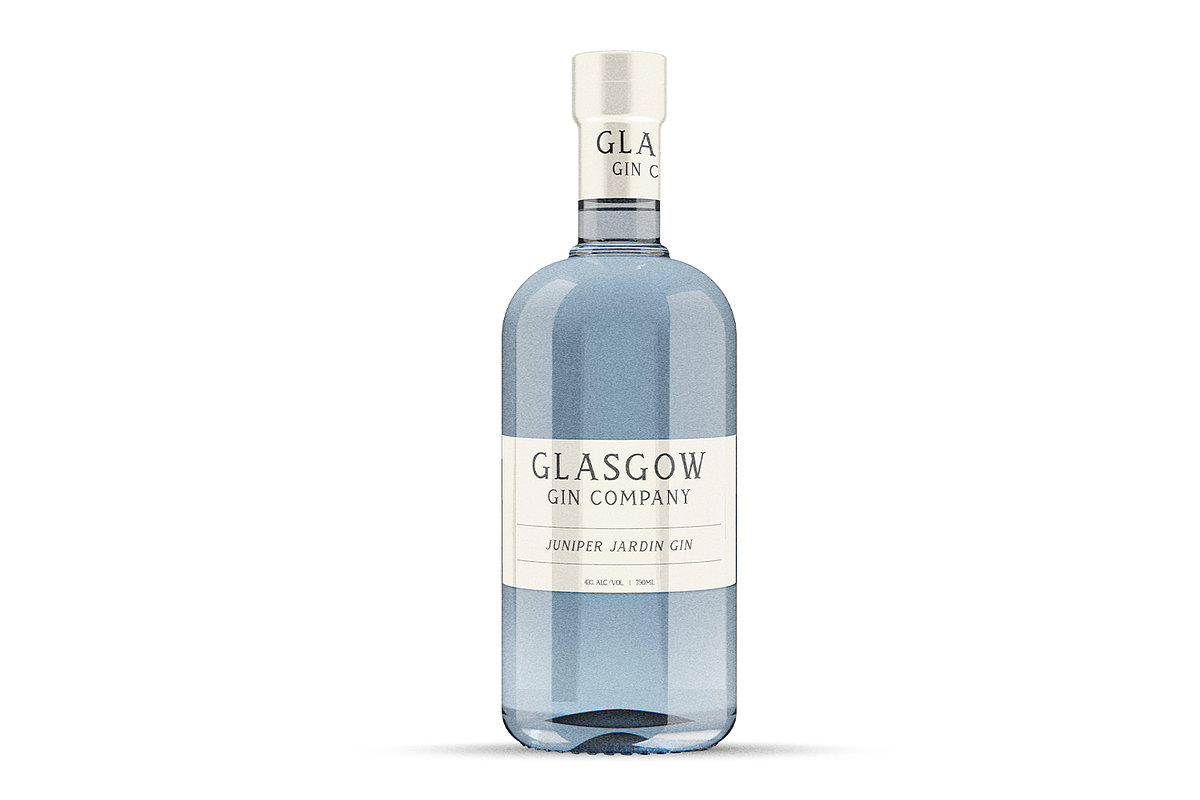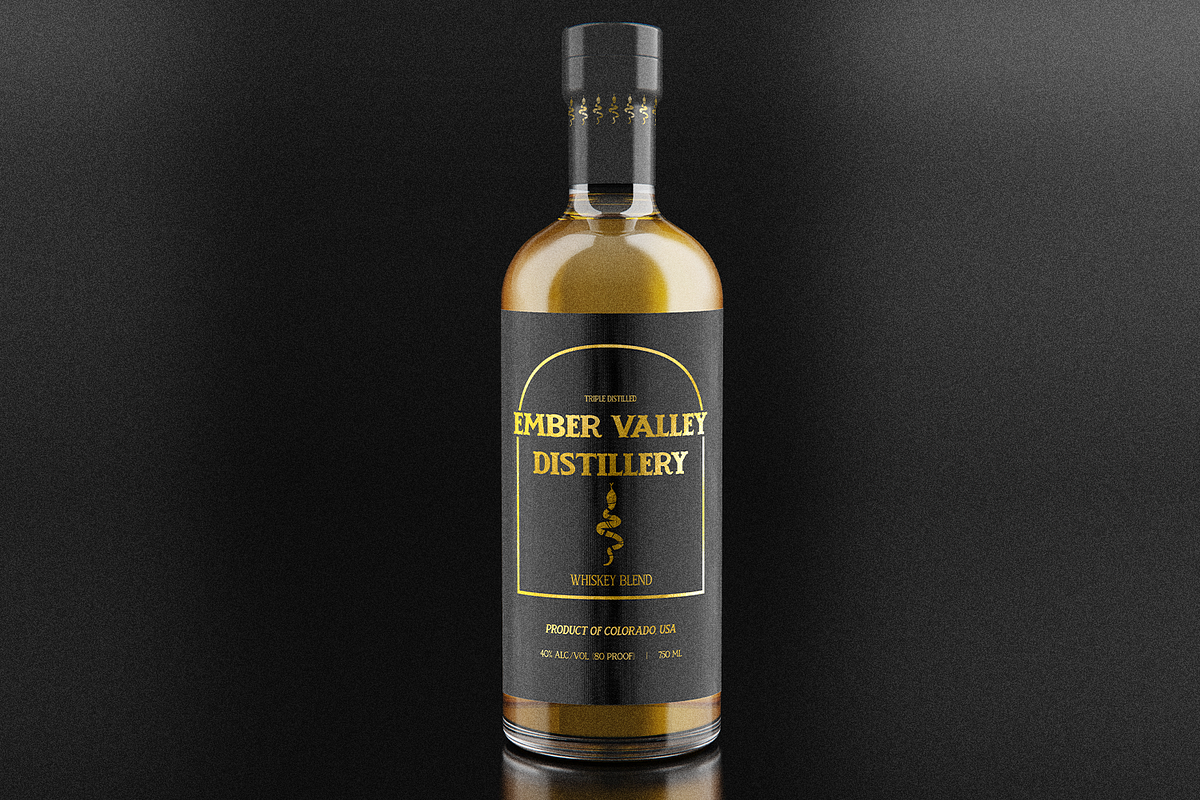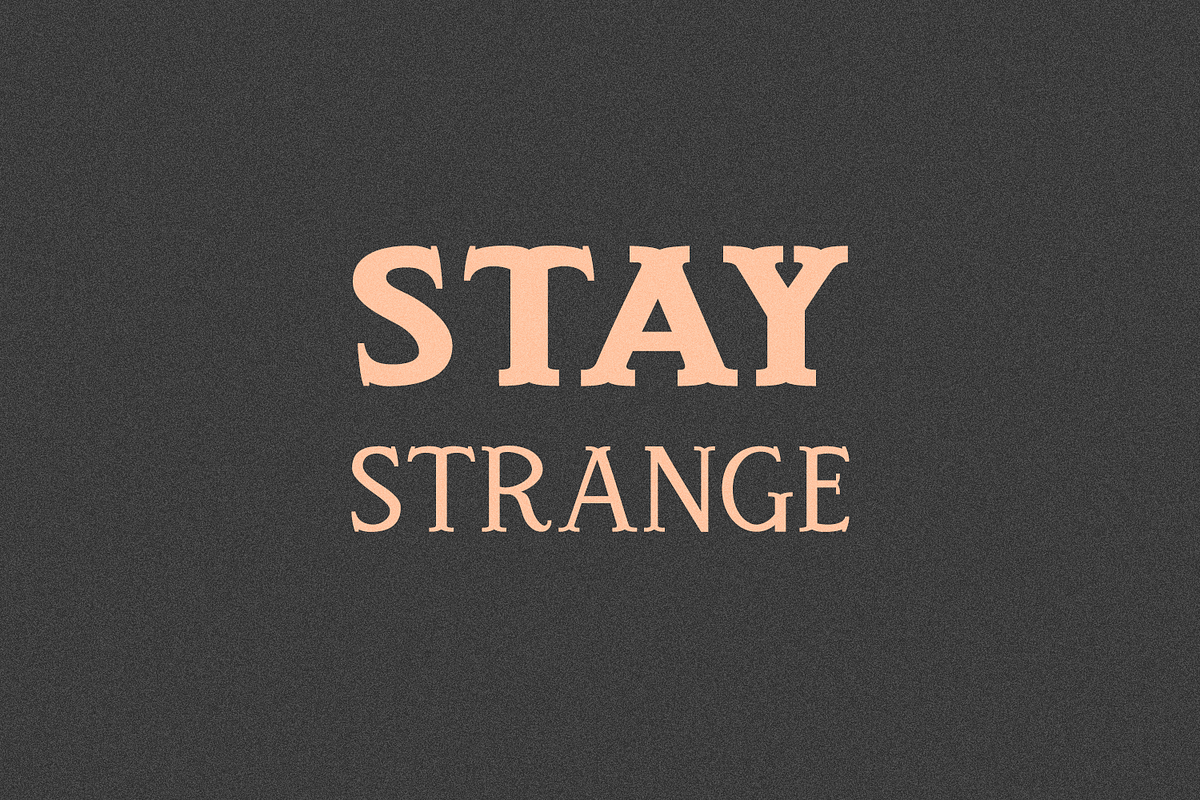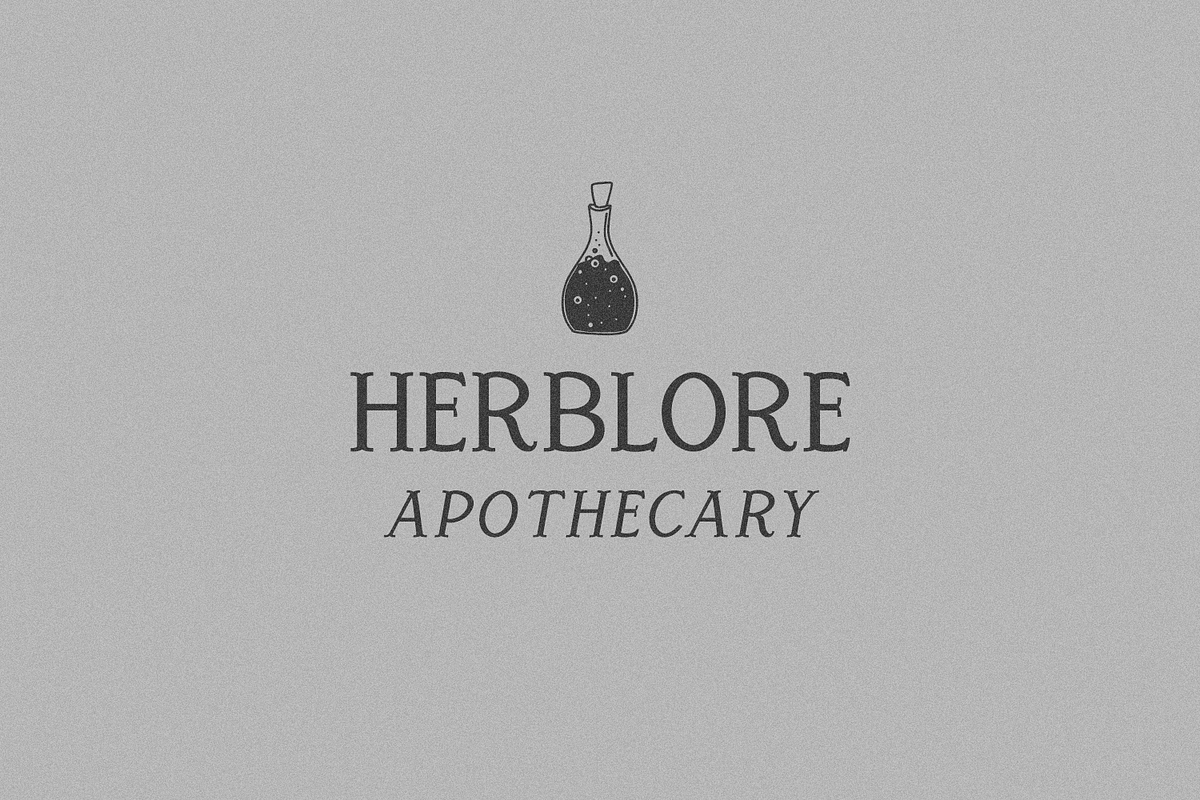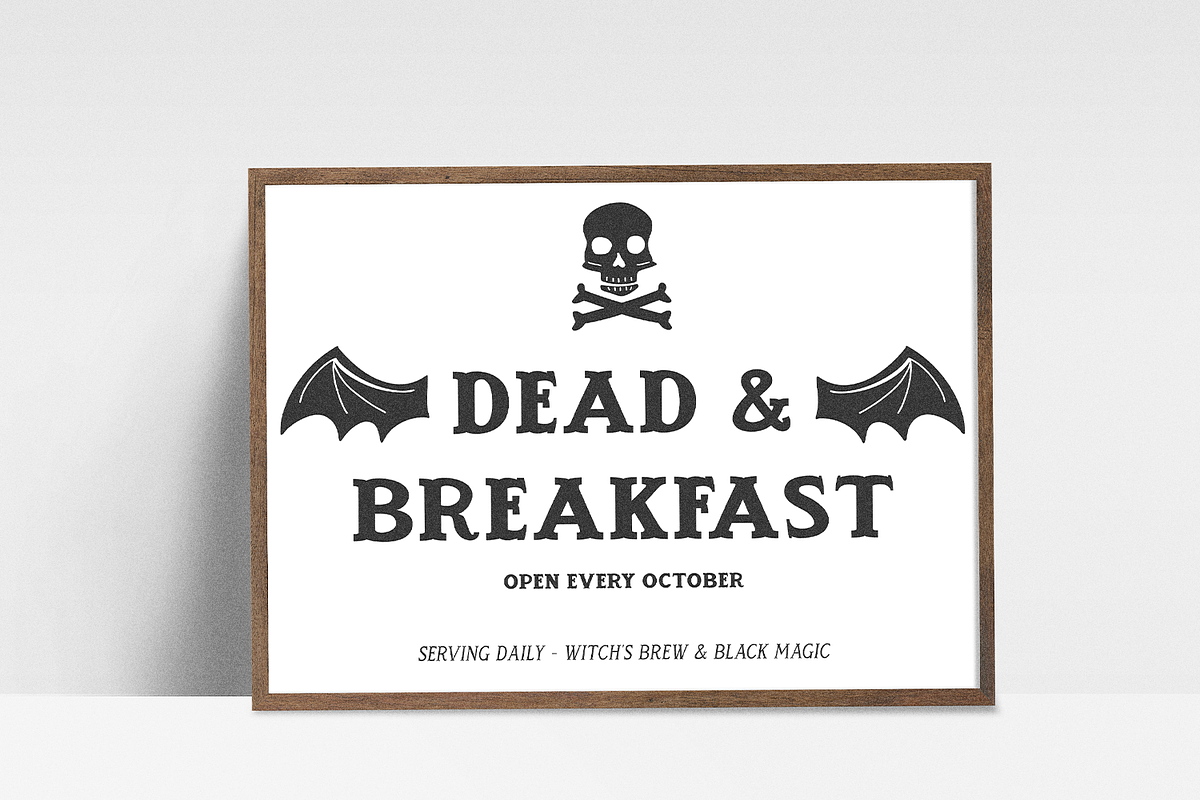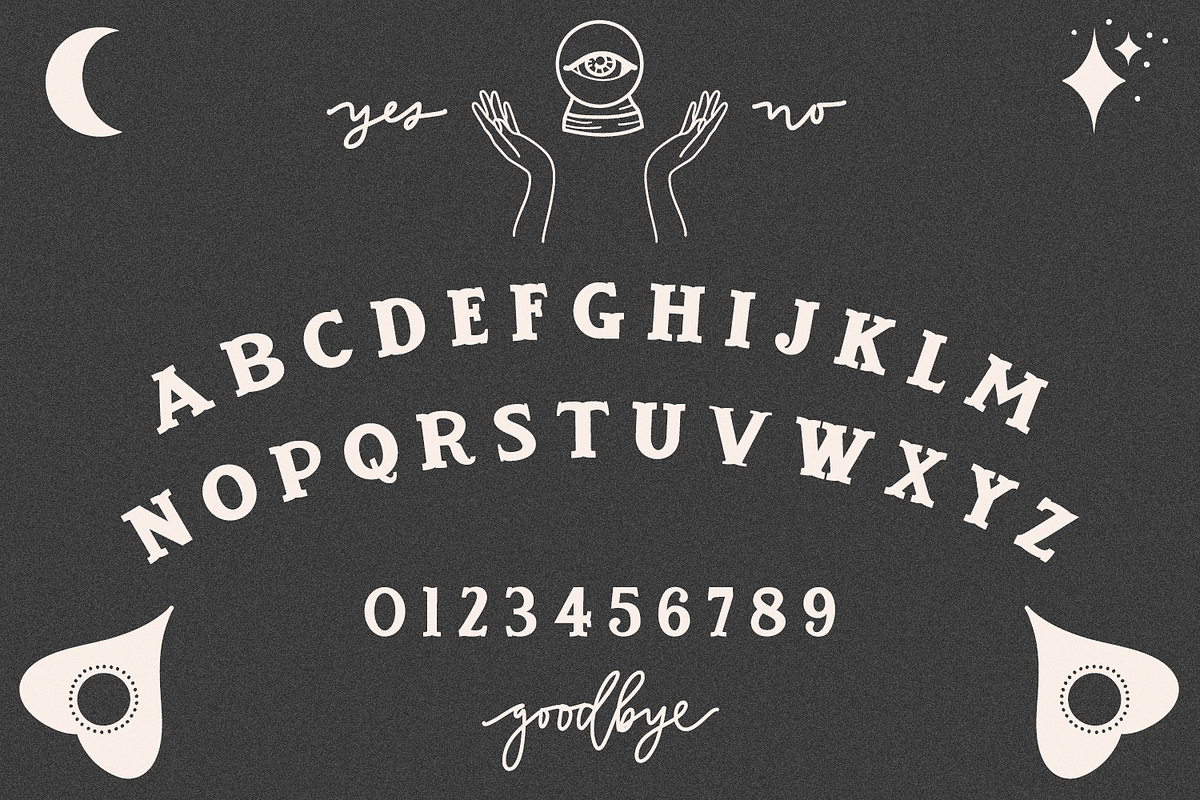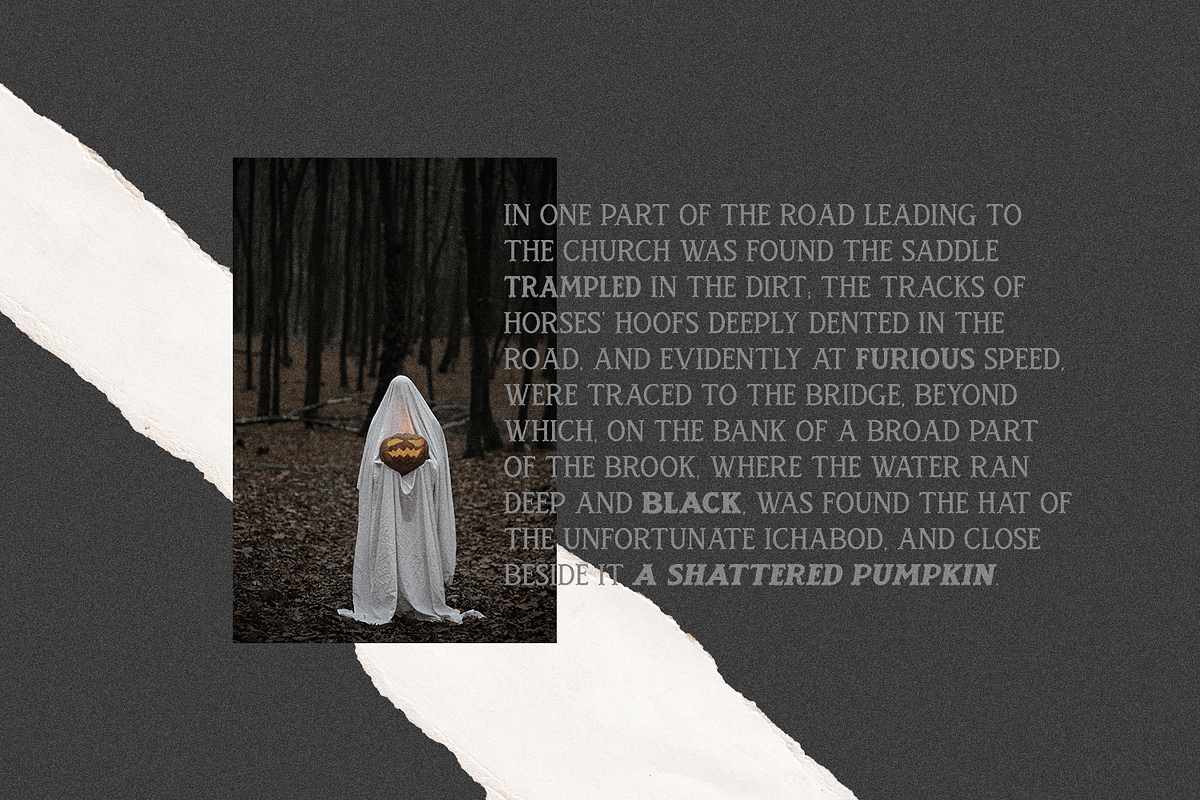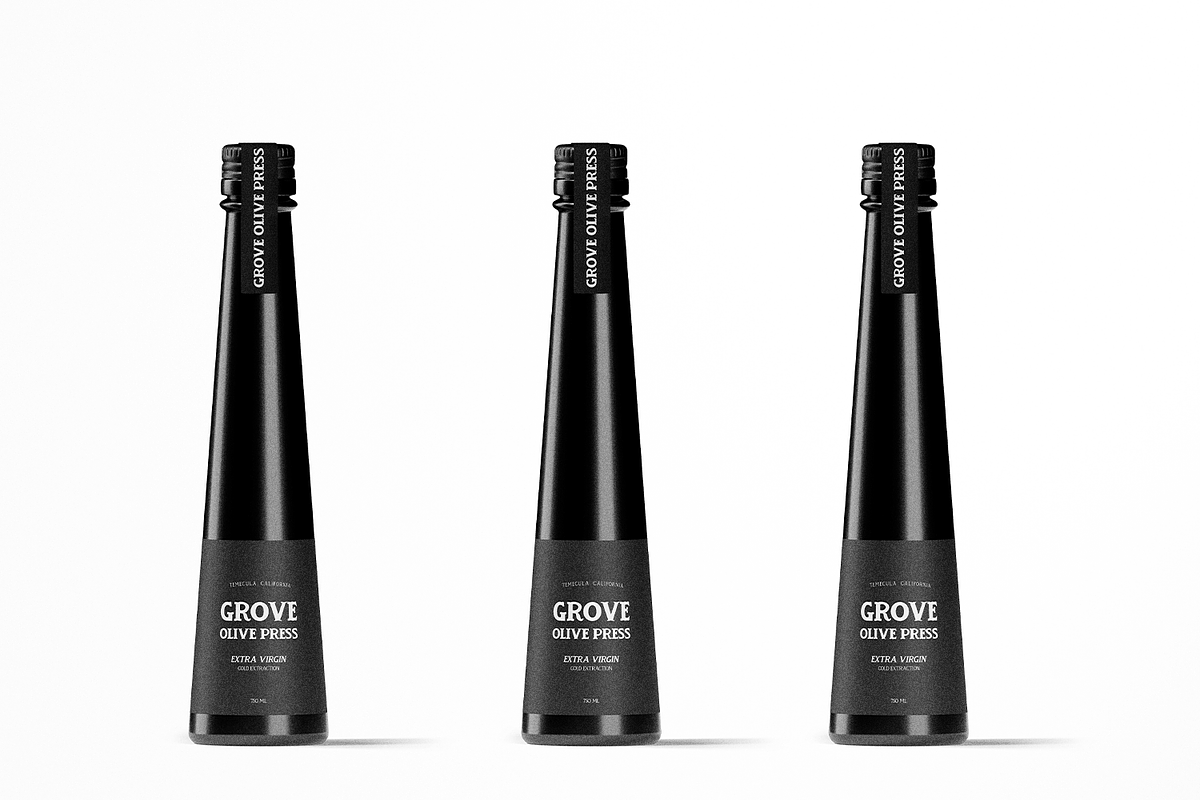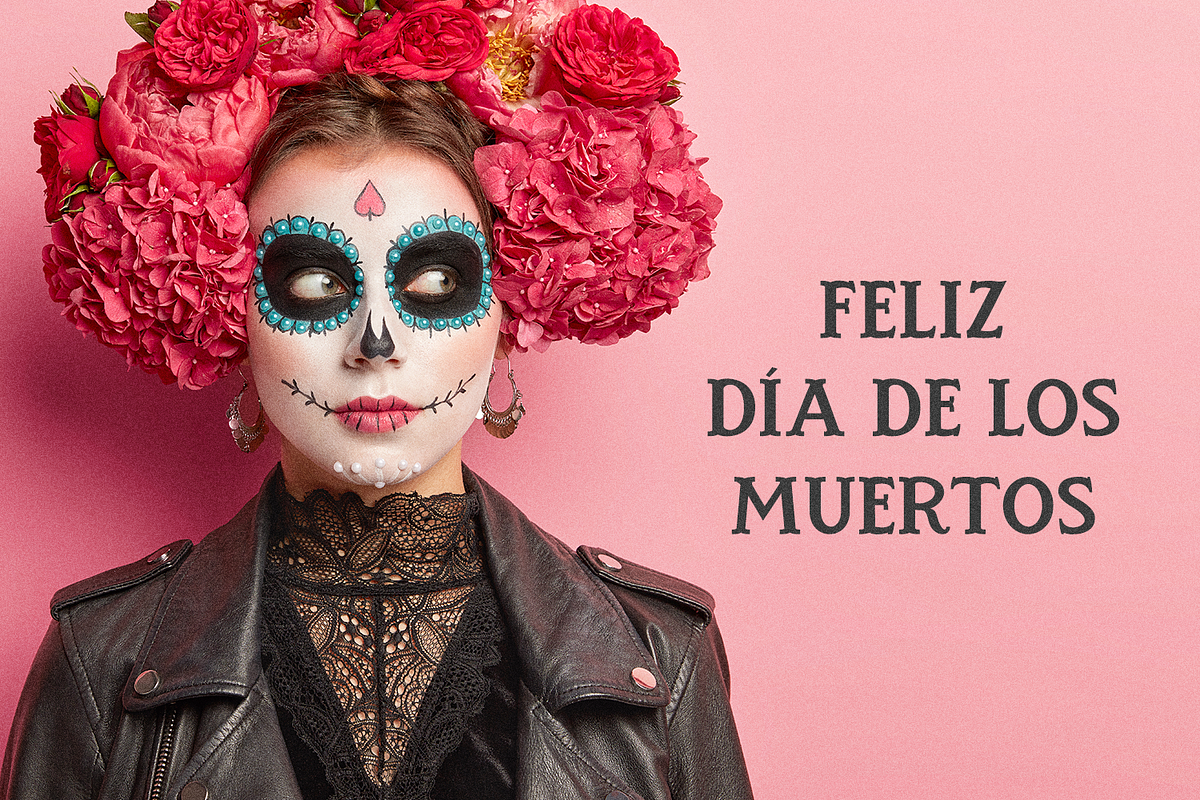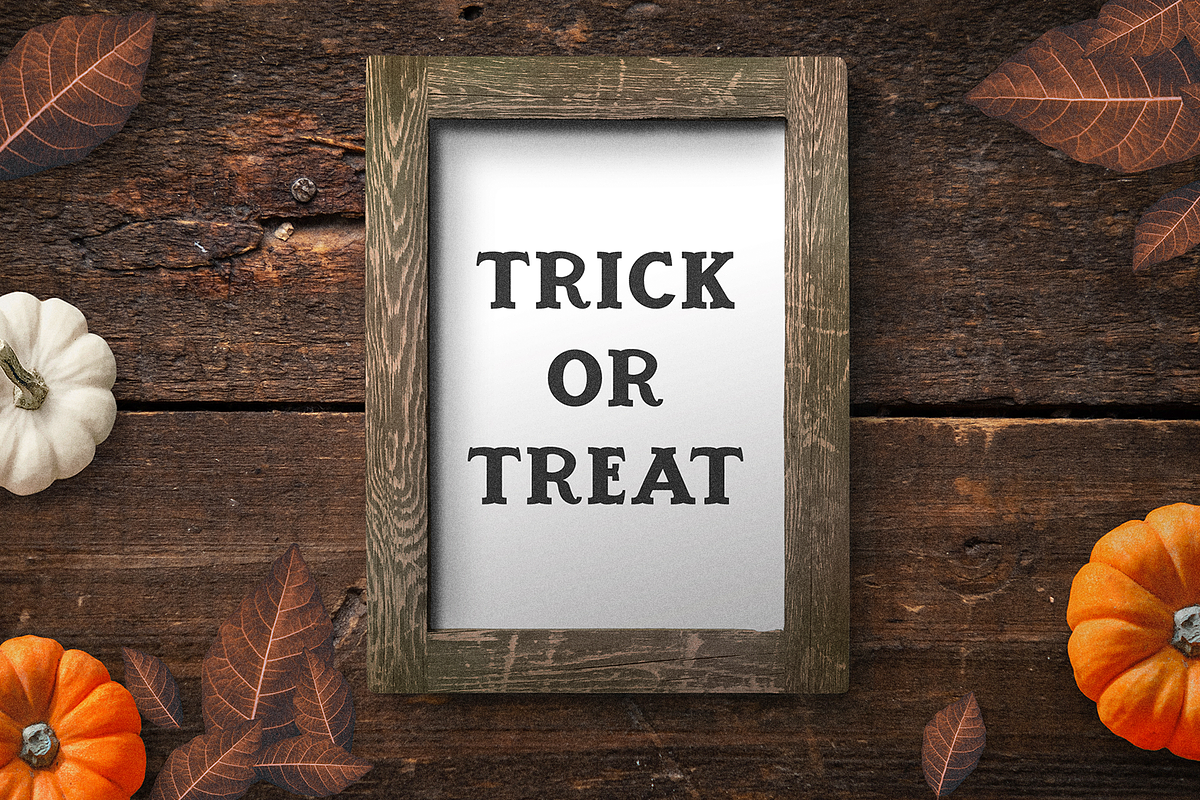
Spirit Box Serif Type Family
Introducing Spirit Box, a serif type family. Spirit Box might have a bit of a spooky aesthetic, but its usefulness extends far beyond Halloween & creepy applications! Spirit Box is a fantastic fit for logos & brands in any category, including fashion, the food industry, boutiques, the beauty industry, and more. Tattoo artists will love this font for both their craft & their shop brands, as well!
Spirit Box works well for print design, like magazines, labels, and product packaging. Itโs also a great fit for signage, whether itโs home decor elements or something much larger like street signage. This font family is well versed for marketing materials, both tangible and digital, as well as social media graphics.
- Spirit Box in light, medium, & bold
- Spirit Box Slant in light, medium, & bold
- Spirit Box Tall in light, medium, & bold
- Spirit Box Slant Tall in light, medium, & bold
Spirit Box Serif includes:
- full uppercase characters
- numbers + punctuation
Spirit Box Doodle includes:
- 52 doodles programmed into A-Z and a-z
Extensive Language Support: Western European, Central European, South Eastern European, South American, Oceanian, Vietnamese, Esperanto